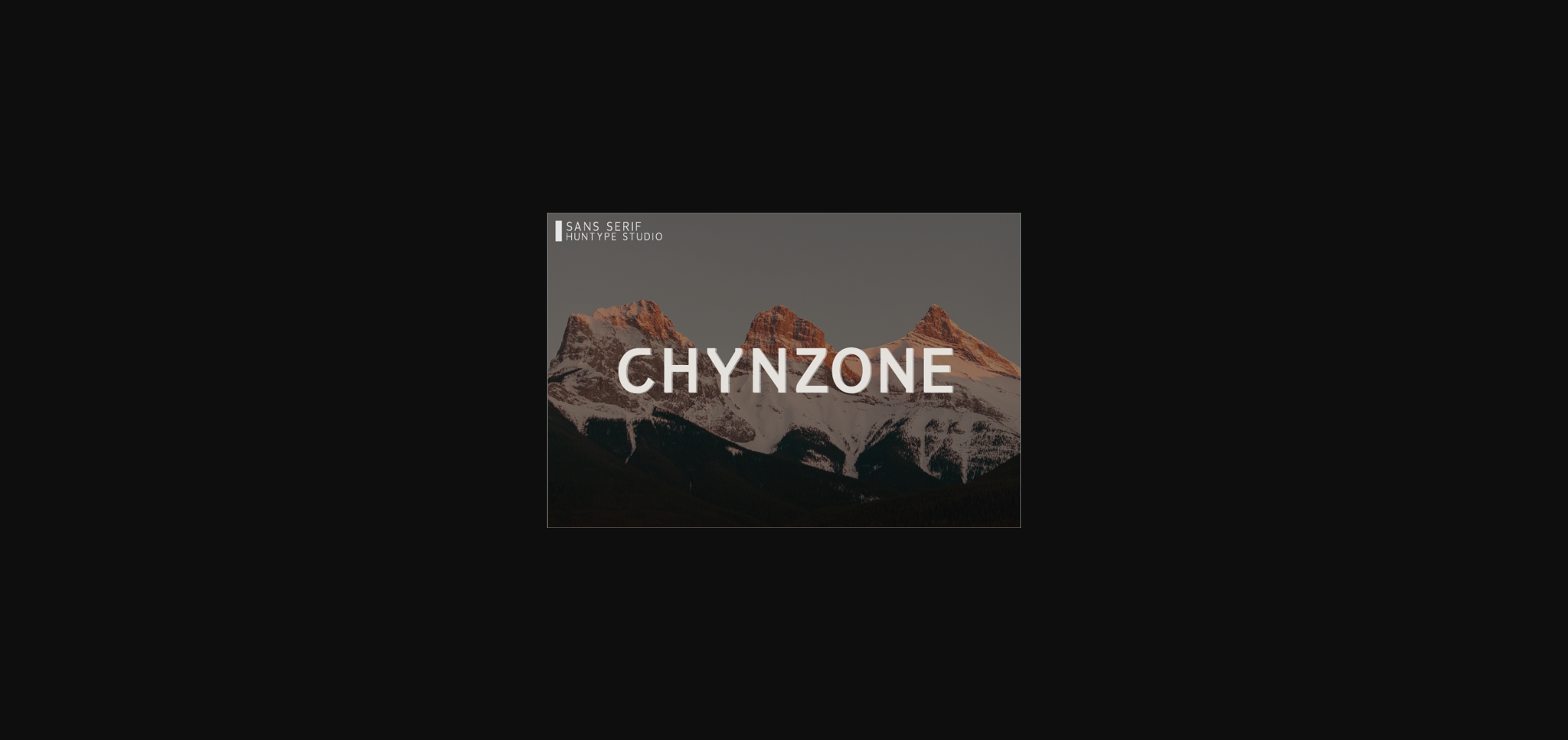
About Chynzone Font
Chynzone is a bold sans serif font, carefully handcrafted to become a true favorite. Its casual charm makes it appear wonderfully down-to-earth, readable and, ultimately, incredibly versatile. Chynzone will look outstanding in any context, whether it’s being used on busy backgrounds or as a standalone headline!